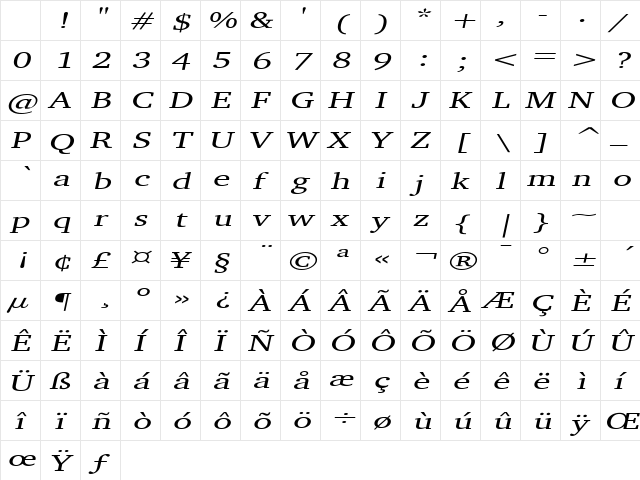
Challenge Extended is a composed and adaptable typeface that performs quietly and consistently across a wide range of design contexts. The slanted form adds forward momentum and visual energy.
Pro Tip: Use Challenge Extended for emphasis, pull quotes, and subheadings where its slanted energy can add rhythm to the layout.